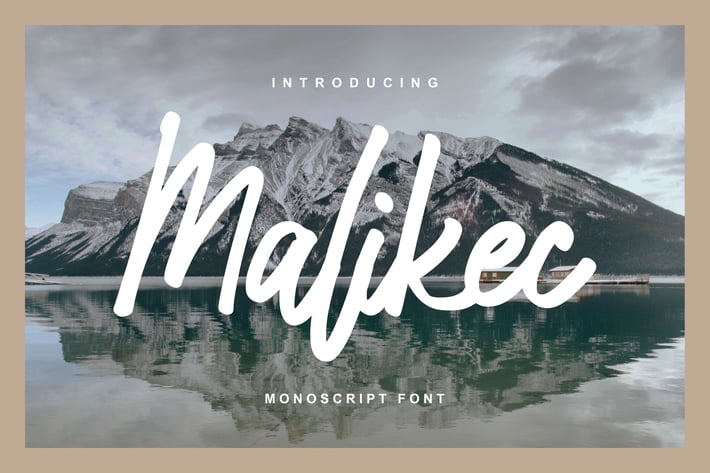
Malikec | Mono Script Font
Malikec | Mono Script Font with a calligraphy style, So beautiful on invitation like greeting cards, branding materials, business cards, quotes, posters, and more!